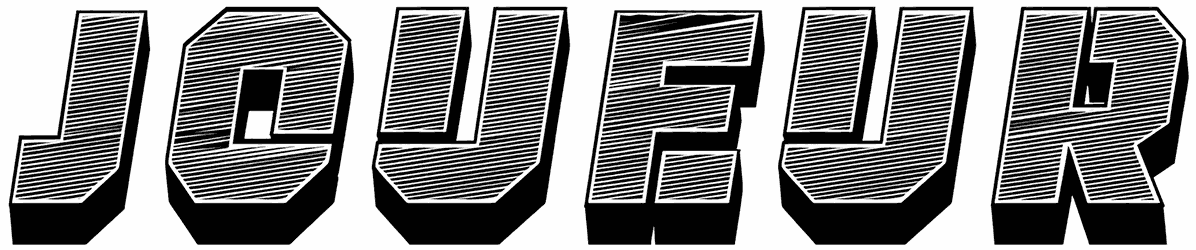
Joueur Font
Joueur font not only shows durability in your designs, but also you can go through a day full of energy without starting from scratch. This boxing font will be one of the most wonderful to use in the design of heavy machine logos, advertising billboards, and competitions such as boxing and MMA. Although there are no small letters in this 3D font, other characters are great for your next projects.